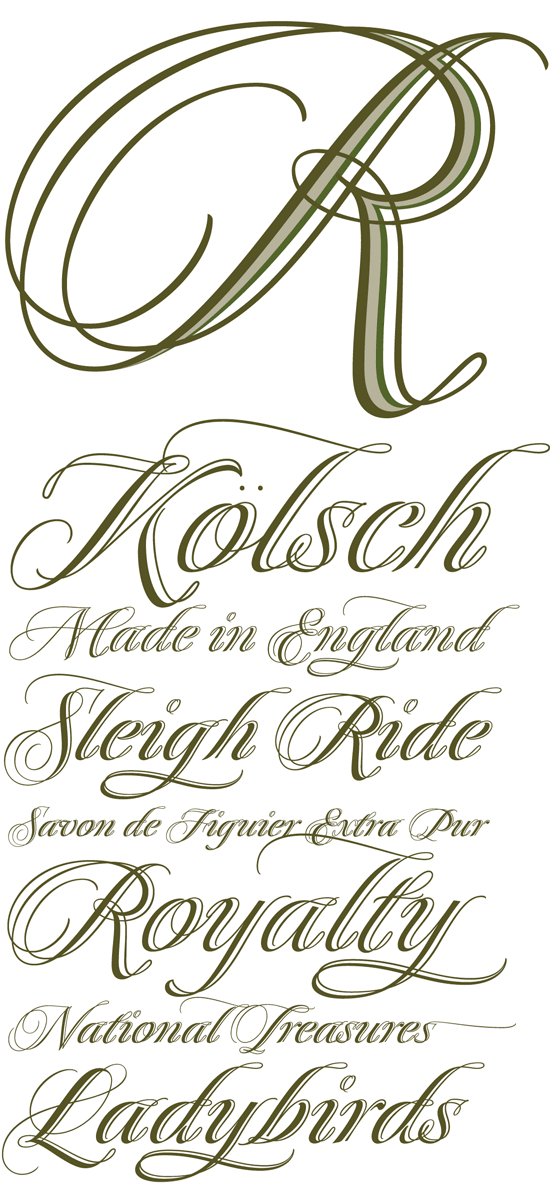
A single master stroke layered in triplicate, Kunihiko Okano’s Quintet answers the conductor’s call for calligraphic flourish.
Quintet was designed as part of Kunihiko’s year-long study at the KABK Type & Media program. We’re happy to offer this custom version of it for Photo-Lettering users.